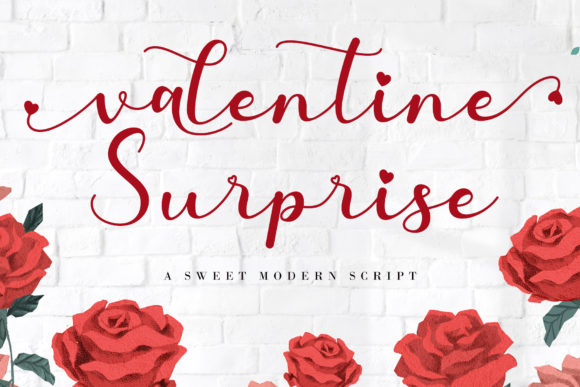
Unleash the allure of love and romance with Valentine Surprise Font, a captivating script font that's sure to make your designs bloom. With its enchanting curves and elegant flow, this font exudes a timeless charm that will leave you breathless.
Indulge in the beauty of hand-crafted calligraphy, where each letter dances with grace and fluidity. Fall head over heels for Valentine Surprise's authentic feel, reminiscent of love letters penned with a quill and ink. Let your creativity flourish as you craft stunning wedding invitations that capture the essence of your special day.
Elevate your logos with a touch of sophistication and romance. Valentine Surprise's delicate strokes add a touch of elegance that will make your brand stand out from the crowd. Create enchanting stationary art that oozes charm and personality. Your designs will undoubtedly captivate and mesmerize.
Make your social media posts pop with Valentine Surprise's eye-catching allure. Its playful and whimsical style is sure to grab attention, making your content shine brighter than a star. Design cute greeting cards that convey warmth and heartfelt emotions. Let your loved ones feel the love overflowing from each stroke of this enchanting font.
Explore endless creative possibilities with Valentine Surprise, a font that unlocks a world of enchantment and delight. Its PUA encoding makes it a breeze to access all the glyphs and swashes, granting you the freedom to create designs that are truly unique.
With Valentine Surprise, your designs will blossom into works of art. Experience the magic of love and romance as your creations come to life. Prepare to be swept off your feet by this extraordinary font.